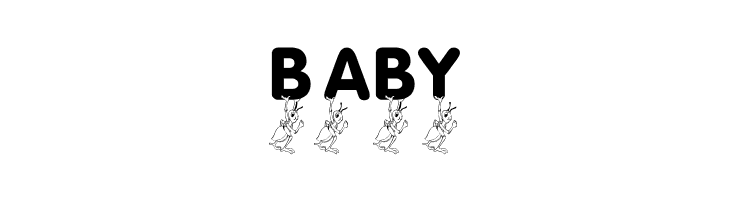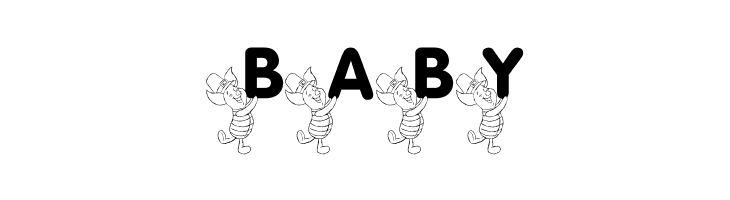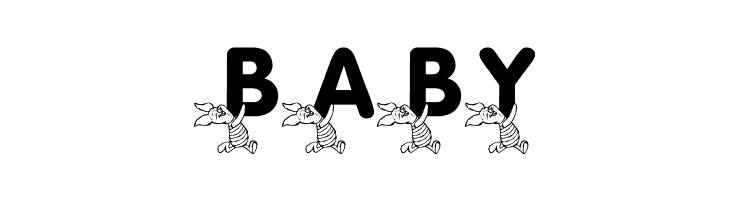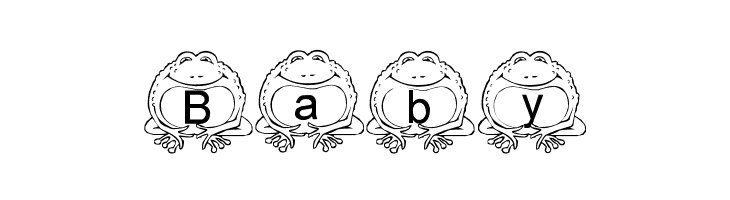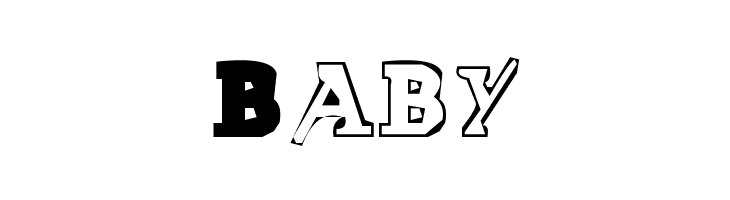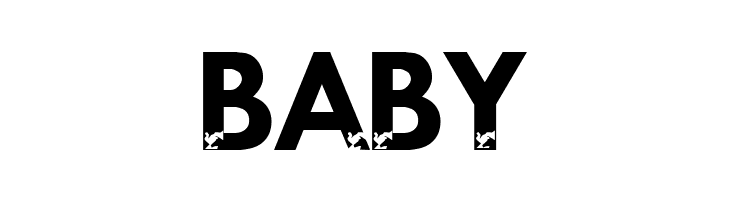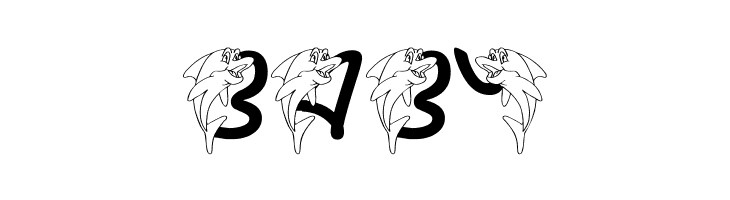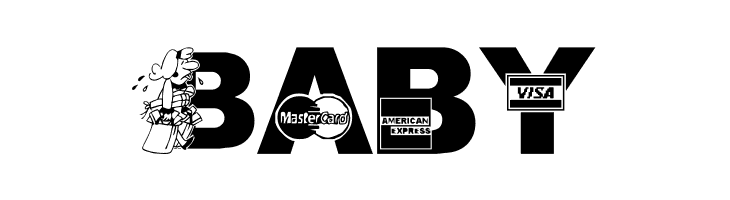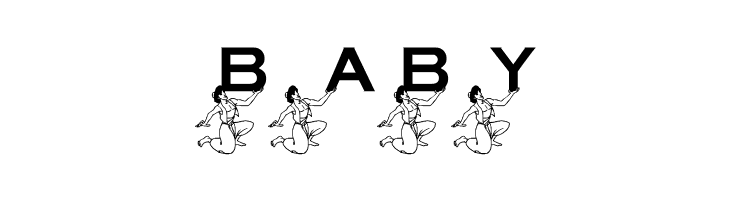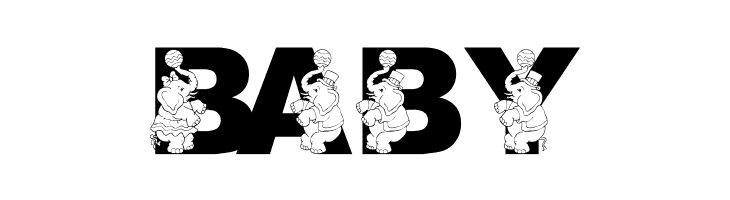
A playful, bold font with rounded edges and thick strokes.
A playful, bold font with cartoon piglet illustrations, perfect for fun and creative projects.
A playful, rounded font with cartoon piglet decorations, ideal for whimsical projects.
A playful font with each character inside a cartoon toad illustration.
A bold, angular font with a playful, retro video game style.
A bold, textured font with a vintage, distressed style.
A decorative font with bold letters integrated with porpoise illustrations.
A decorative font with Thanksgiving-themed illustrations within bold uppercase letters.
A bold, modern sans-serif font with geometric lines and uniform strokes.
A bold, decorative font with playful elephant illustrations integrated into each character.